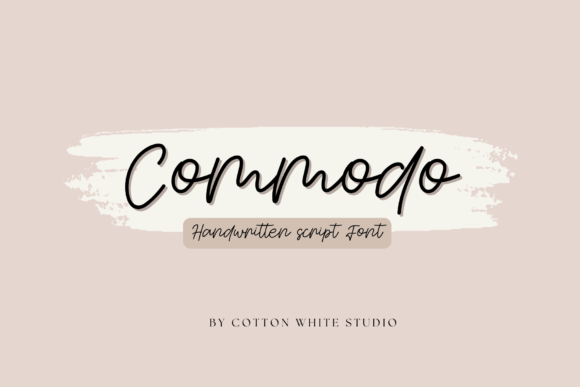
Unleash the captivating allure of the Commodo script font, an exquisitely crafted digital masterpiece that will transform your artistic visions into breathtaking realities. Step into a world of elegance and sophistication where your words dance upon the page with an enchanting grace, leaving an indelible mark on all who behold them.
Commodo's meticulously designed curves and flourishes embody the essence of handwritten artistry, lending an air of authenticity and warmth to your creative endeavors. With its timeless beauty, this font is the perfect companion for branding projects, where it will elevate your brand identity, making it stand out from the mundane and ordinary.
Picture your logo, adorned with the graceful strokes of Commodo, captivating the attention of potential customers, drawing them into your world of elegance. Or envision your wedding invitations, imbued with a romantic charm that reflects the love and joy of your special day. Let Commodo carry your words of love and commitment, transforming them into a tangible expression of your heartfelt emotions.
For those who seek to weave enchanting tales, Commodo provides the perfect quill. Its delicate strokes will guide your readers through fantastical landscapes, allowing them to immerse themselves in the magic of your storytelling. Whether crafting blog posts or personal journals, Commodo will add a touch of whimsy and enchantment to your written words, leaving your readers spellbound.
And for those with a passion for planning and organization, Commodo offers a touch of artistry to the mundane. Transform your planners and journals into works of art, where your appointments and tasks are adorned with a touch of grace. Let Commodo inspire your productivity, making even the most mundane tasks feel like a creative endeavor.